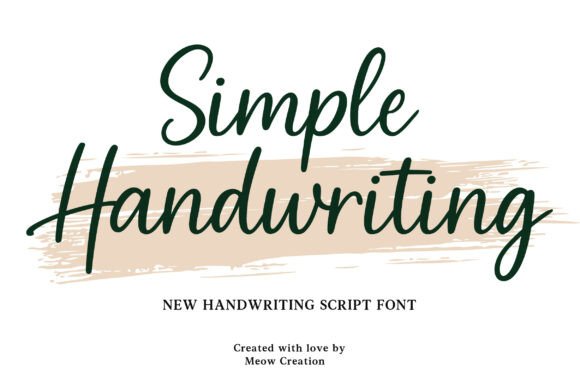
Simple Handwriting Font
Simple Handwriting font is a beautifully fluid, contemporary script that mimics natural, relaxed handwriting with a distinct sense of personal authenticity and casual elegance.
The clean, medium-weight weight and gentle slant of this Simple Handwriting typeface make it highly legible, unlike many overly decorative scripts, allowing it to work well for both headlines and short paragraphs. Its sweeping connections and smooth curves make it a designer’s favorite for adding a genuinely human touch to digital work.
This versatile script font is perfect for branding, creating unique watermarks, designing sophisticated social media captions, or adding a quick, personal signature to your artwork. The Simple Handwriting font ensures your message feels personal, warm, and inviting.